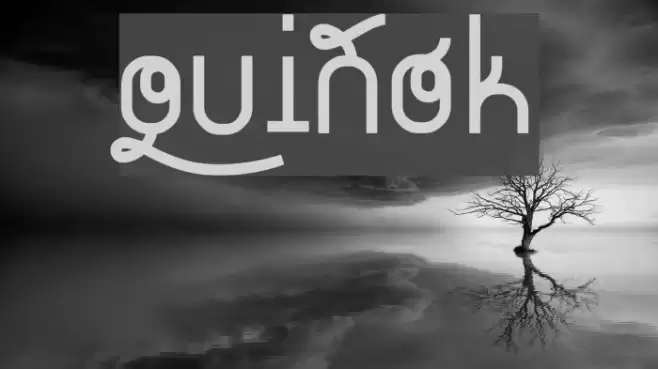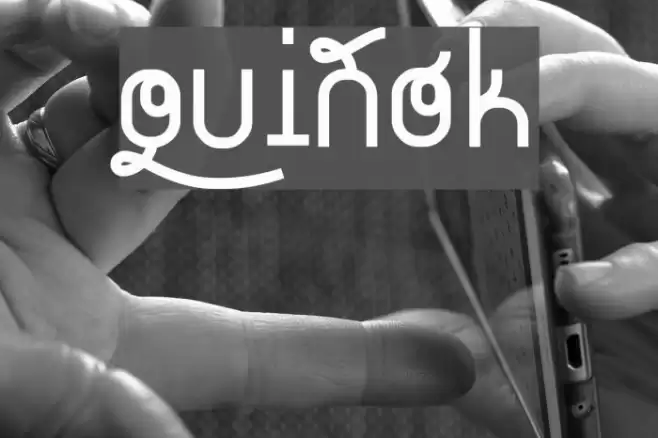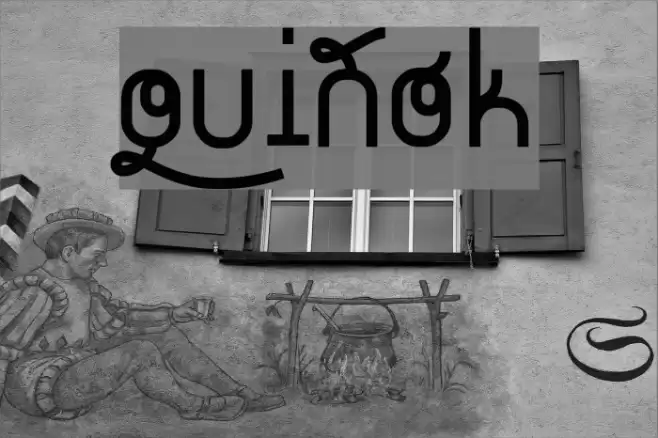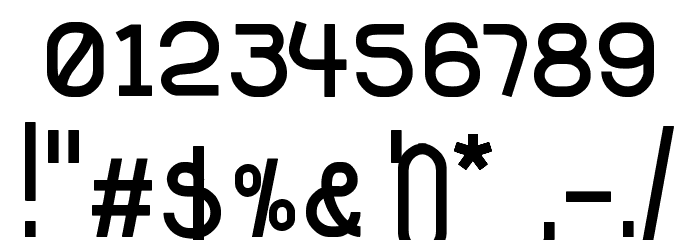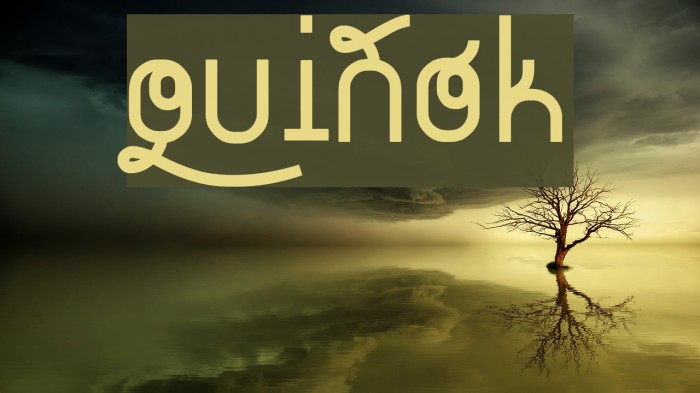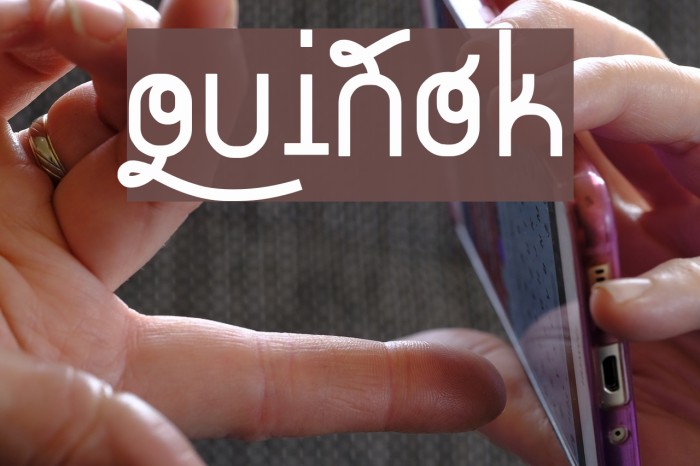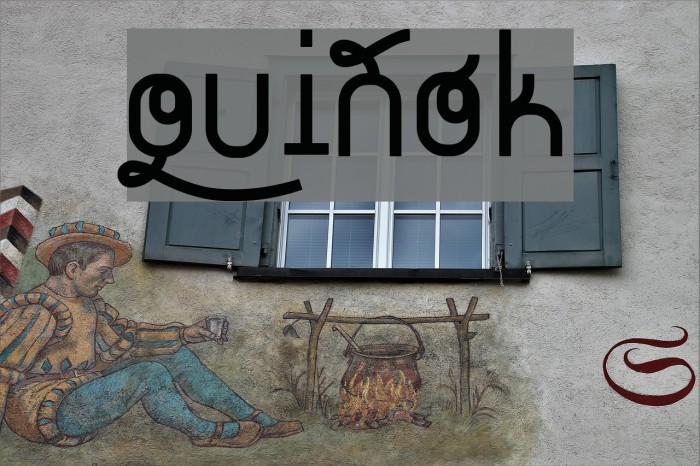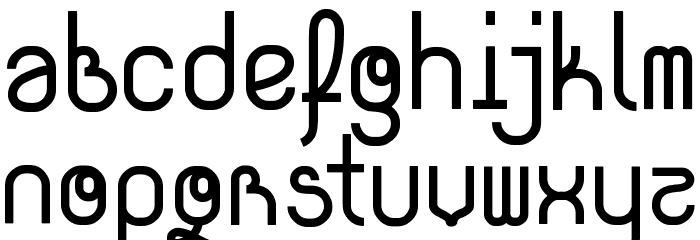
quiñók Font
quiñók Description
This font features a unique and modern design with a playful twist. The characters are rounded and have a distinct geometric structure, giving them a contemporary and approachable feel. The lowercase letters have a consistent height, while the uppercase letters maintain a uniform width, creating a harmonious balance. The numbers are clear and easy to read, with a similar rounded style. Special characters are creatively designed, adding to the font's overall charm. This font is versatile and can be used in various design projects where a modern and friendly appearance is desired.
A modern, rounded font with a playful and geometric style.
- Proposed Projects: Ideal for branding, advertising, children's books, and digital media where a friendly and modern look is needed.
- Category: Sans-Serif
- Use Case: Headlines, Logos, Digital Media